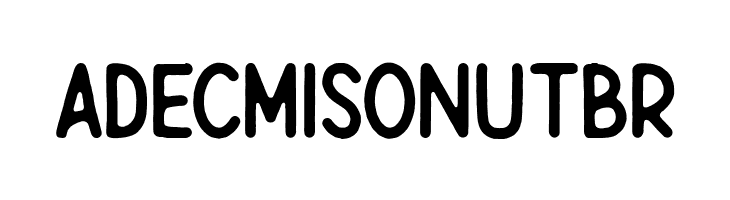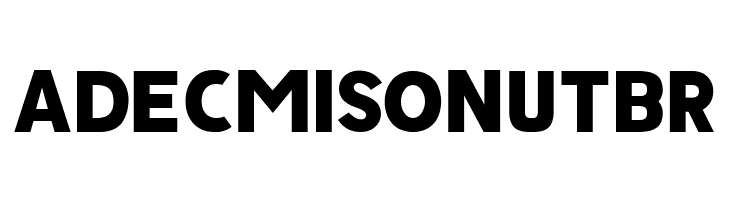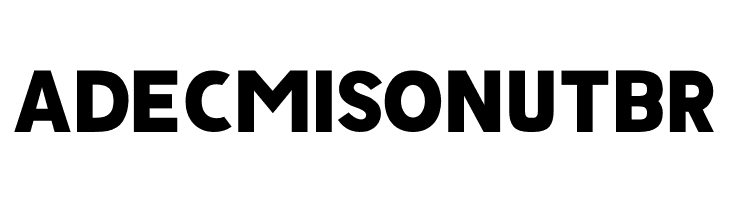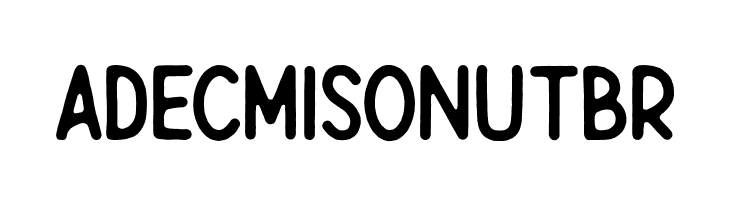
A bold, rounded font with a playful and friendly style.
A bold, modern font with uniform strokes and strong visual impact.
A bold, geometric sans-serif font with a modern aesthetic.
A playful, bold font with rounded, hand-drawn characters.